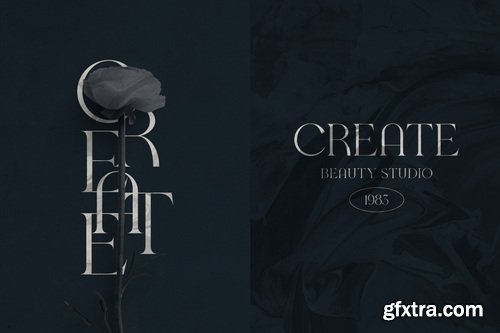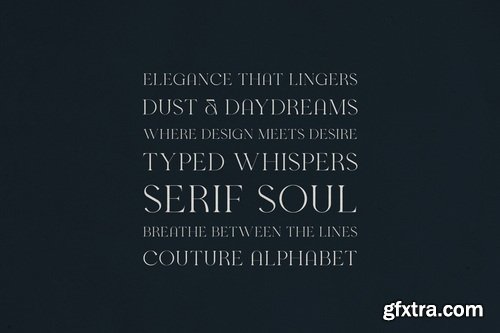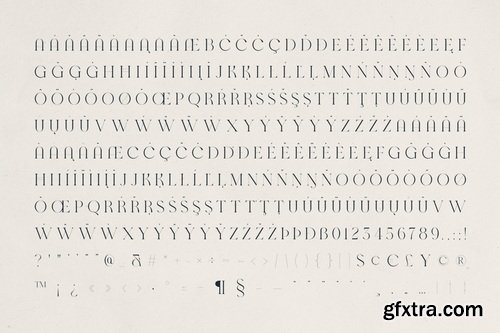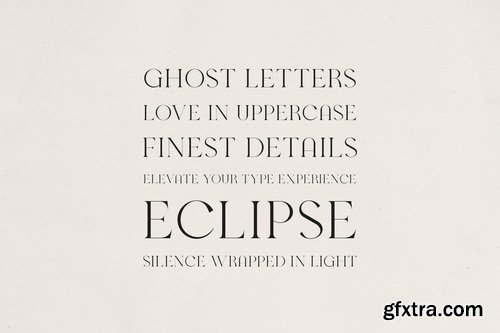
CreativeMarket - Solora – Elegant Modern Serif Font
- Introducing Solora, a timeless and elegant serif font designed to bring sophistication and style to any project. With its high-contrast strokes, graceful curves, and couture-inspired letterforms, Solora is perfect for designers seeking a refined typeface with a modern twist.
- Crafted with attention to detail, Solora’s sleek serifs and tall proportions exude confidence and luxury—making it the ideal choice for branding, editorial layouts, packaging design, fashion campaigns, and high-end beauty promotions.
- Whether you're creating a luxury logo, stylish magazine spread, or a chic invitation, Solora adds instant elegance and a touch of drama. Its versatile structure allows it to shine in both headlines and refined body text.